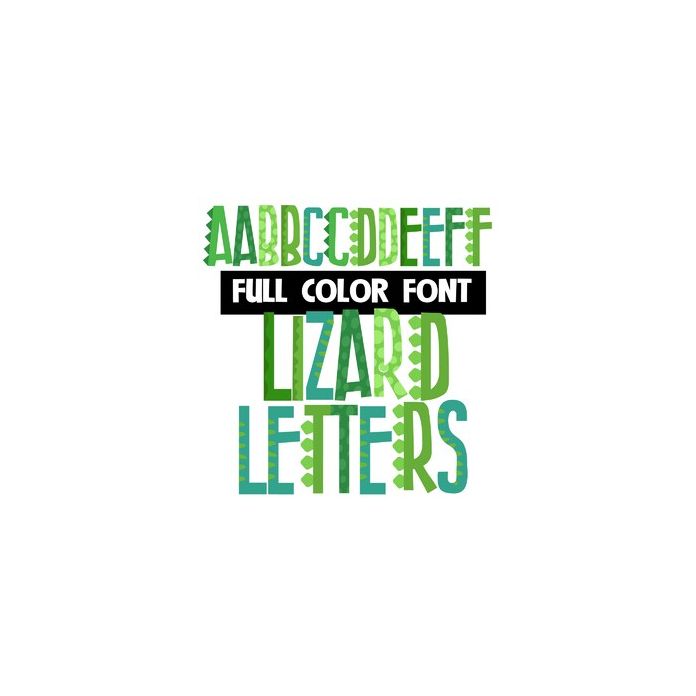
This full-color font features lizard-like patterns and scales. This font works best for titles, displays, posters and more. Please note color fonts will show as black in non compatible programs. This font type is compatible with Silhouette Studio